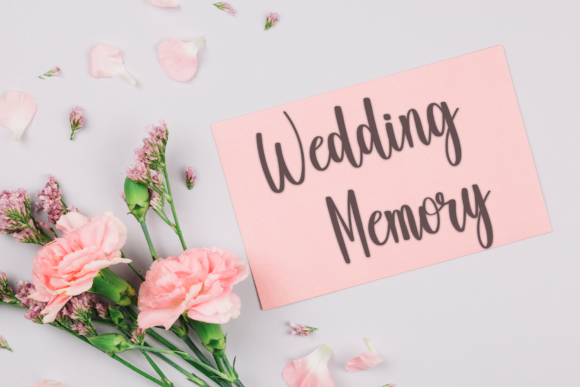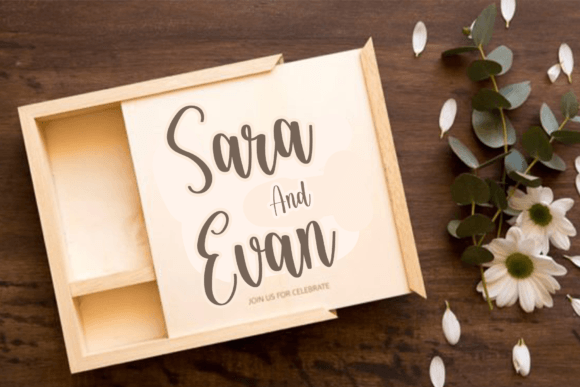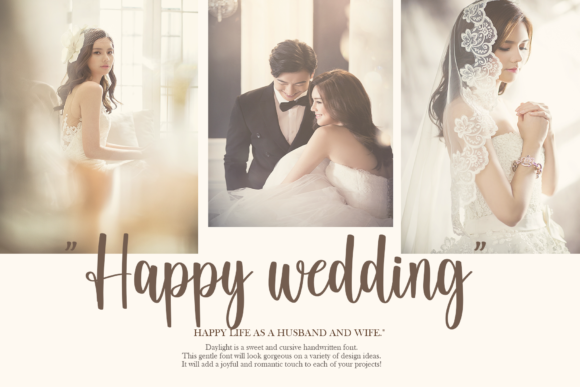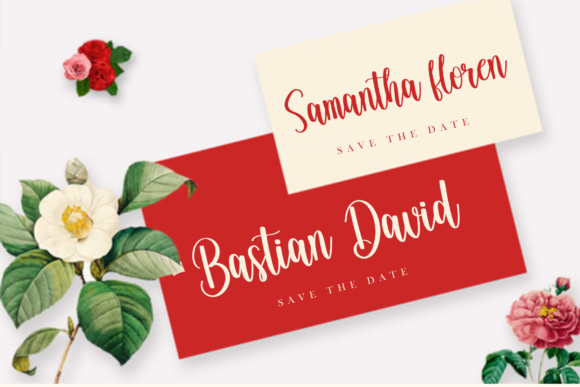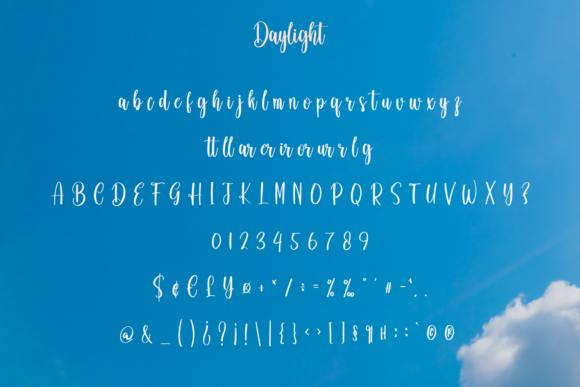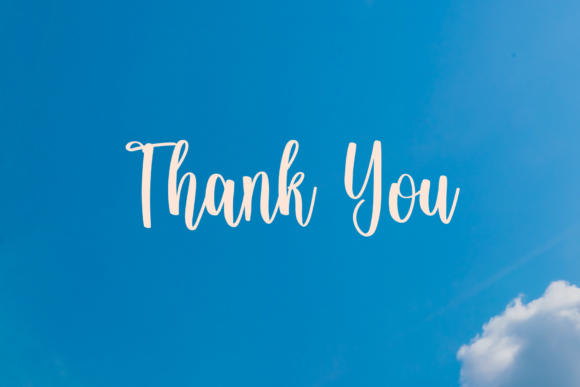
Daylight Font
About Daylight Font
“Daylight”: Illuminate Your Designs with the Beauty of Handwritten Elegance
Introducing “Daylight,” a beautiful handwritten font designed to infuse your projects with a touch of grace and charm. This versatile font is the perfect choice for a wide range of applications, from wall displays and wedding invitations to social media posts, logos, advertisements, product packaging, labels, photography, watermarks, invitations, stationery, and any project that calls for impressive typography.
The allure of “Daylight” lies in its inherent beauty and the fluidity of its handwritten style. Each character is crafted with precision, creating a font that feels both elegant and approachable. The natural flow of the letters adds a personal touch, making “Daylight” a delightful choice for projects that require a warm and inviting atmosphere.
Whether you’re working on a wall display that needs to capture attention or designing a wedding invitation that demands a touch of romance, “Daylight” rises to the occasion. The font effortlessly adapts to various design contexts, allowing you to create visually stunning and impactful pieces that leave a lasting impression.
Social media posts, logos, and advertisements benefit from the unique charm of “Daylight.” Its versatility makes it easy to integrate into your branding efforts, adding a signature touch that sets your designs apart. The font’s ability to convey both sophistication and friendliness makes it suitable for a broad spectrum of design needs.
“Daylight” isn’t just a font; it’s a design companion that brings an extra layer of beauty to your creative projects. Its impressive typography is well-suited for labels, product packaging, and product designs, ensuring that your products make a memorable visual impact. Additionally, for watermarks, invitations, and stationery, “Daylight” becomes the elegant choice that leaves a lasting impression.
In conclusion, “Daylight” is a versatile and beautiful handwritten font that elevates your designs with grace and charm. Whether you’re creating wall displays, wedding invitations, social media posts, logos, advertisements, or any other project, let “Daylight” be the font that adds a touch of impressive typography and sophistication to your creative endeavors.